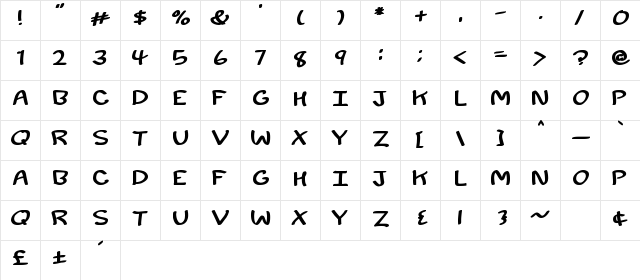
Sunshine Smile Regular
| Designer | Joseph Dawson |
Design Context for Sunshine Smile Typeface
Sunshine Smile is a composed and adaptable typeface that performs quietly and consistently across a wide range of design contexts.